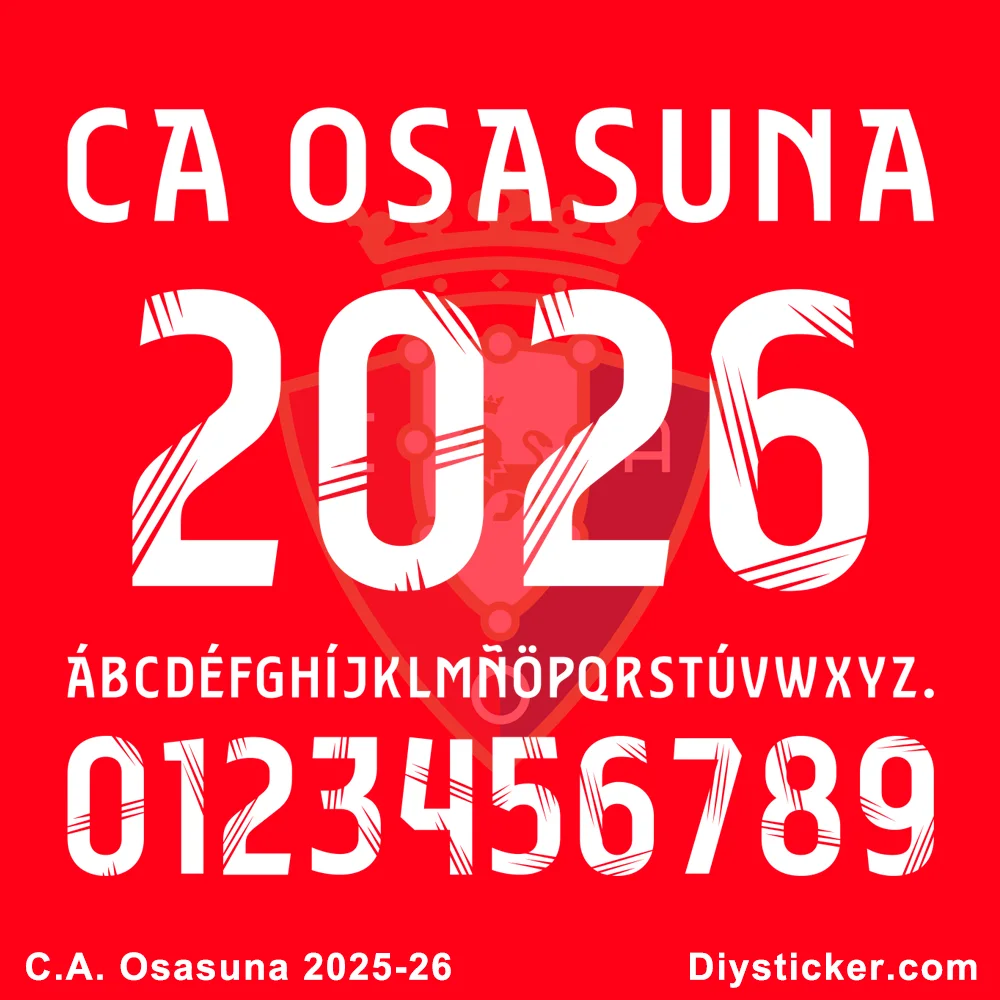
Capture the unique identity of Navarre with the official CA Osasuna 2025-26 Font. This is the authentic typeface used by Club Atlético Osasuna on its official kits, La Liga graphics, and all communications for the new season. Featuring distinctive character designs that reflect the club’s strong regional heritage.